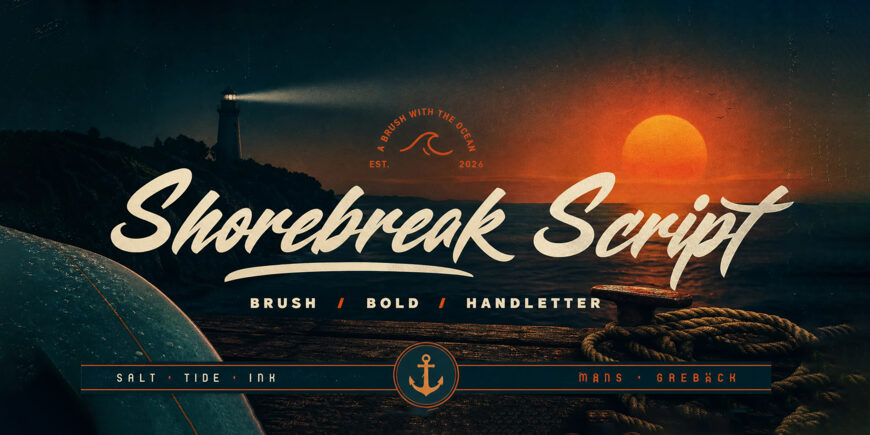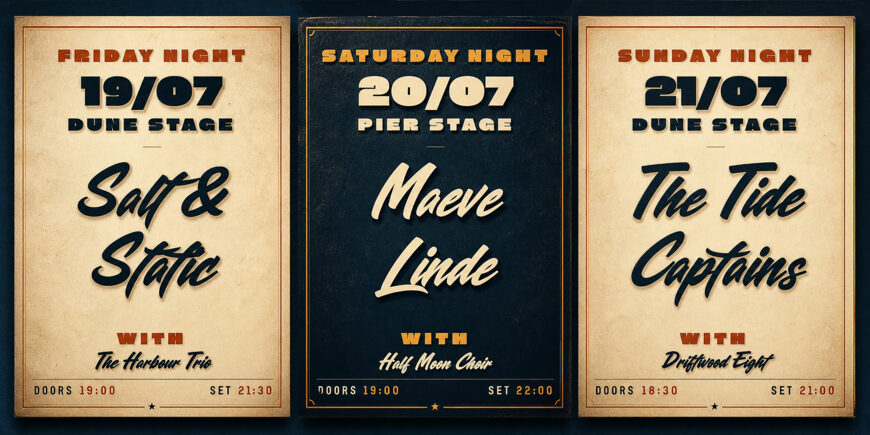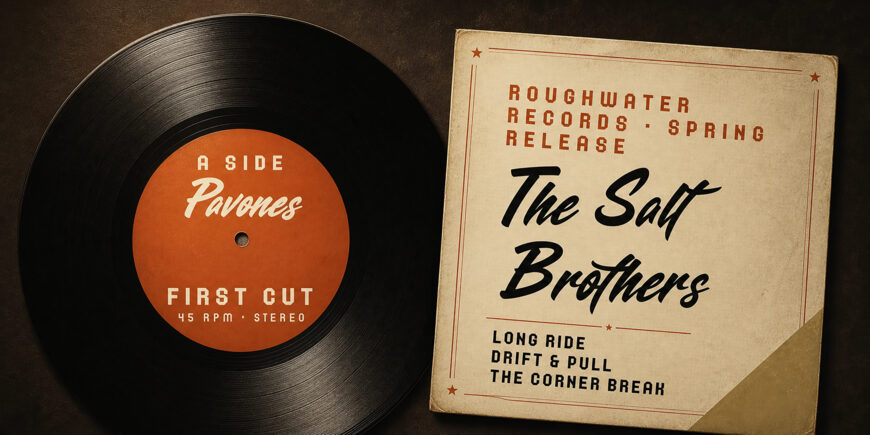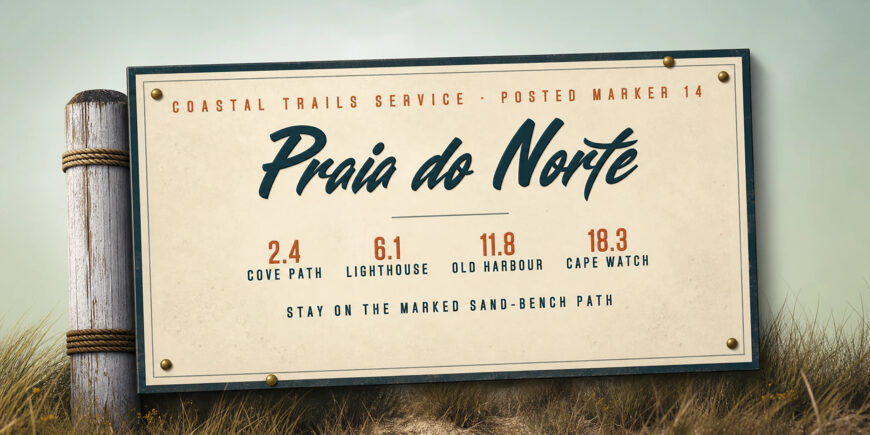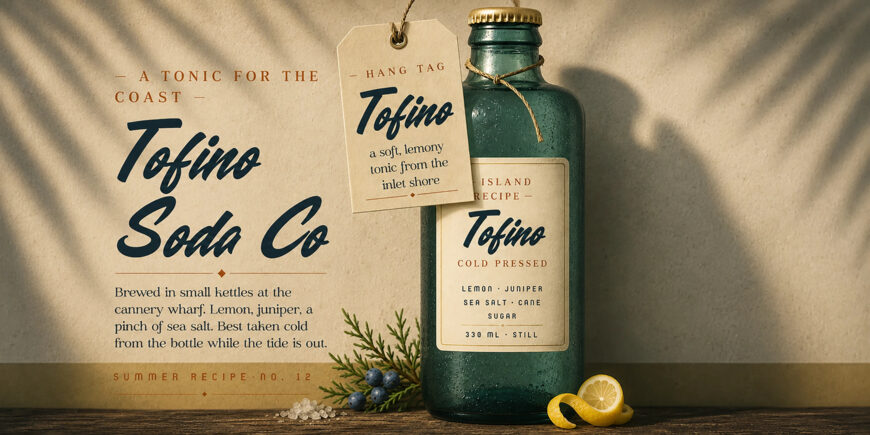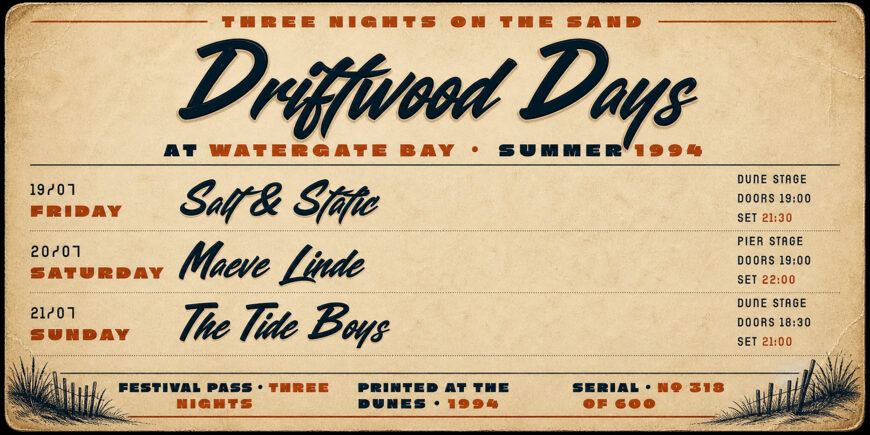
Shorebreak Script is a bold brush handletter built on confident, energetic strokes and a slight right slant. The capitals carry the weight of a thick-loaded paintbrush, while the lowercase joins together in a steady flow that keeps the rhythm of fast handwriting.
The strokes feel direct rather than ornate — no extra flourishes, just the swing and grit of marker work done at speed. It reads loudest at large sizes, where the character of each stroke can breathe. The lettering belongs on a hand-painted longboard, a sun-bleached enamel sign at the end of a coastal road, the spine of a 7-inch sleeve, or the side of a wooden crate set down on a wharf at first light.